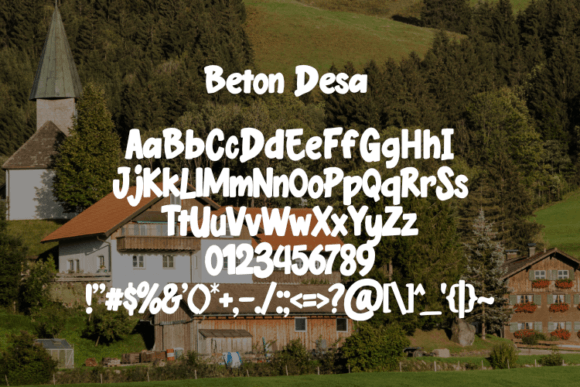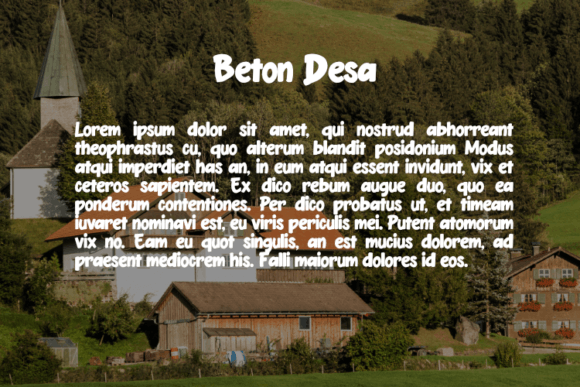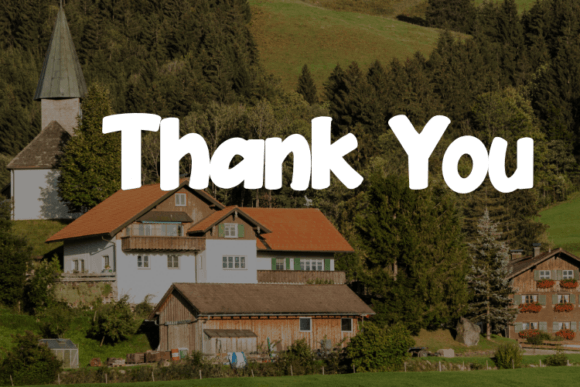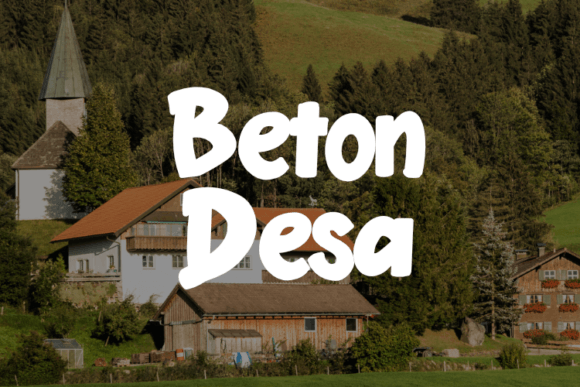
Introducing Beton Desa: The Ultimate Font for Fashion Design Ventures
Are you a fashion designer, craft enthusiast, or creative entrepreneur looking for a font that can elevate your design game? Look no further than Beton Desa, a stunning typeface that is perfect for all your fashion design ventures. From haute couture clothing to vibrant t-shirts, this versatile font seamlessly fits your creative desires, allowing you to bring your design ideas to life.
The Perfect Font for Fashion Design
Beton Desa is a beautifully crafted font that is specifically designed to meet the needs of fashion designers, crafters, and creatives. Its unique and elegant style makes it an ideal choice for a wide range of design projects, including fashion branding, clothing labels, t-shirt designs, and more. Whether you’re creating a luxury fashion brand or a casual streetwear label, Beton Desa is the perfect font to help you establish a strong visual identity.
One of the standout features of Beton Desa is its versatility. This font is designed to be adaptable and can be used in a variety of design contexts, from digital to print. Whether you’re creating a fashion brochure, a social media graphic, or a product label, Beton Desa looks amazing. Its clean lines, elegant curves, and sophisticated style make it a font that can be used in a wide range of design projects, ensuring that your brand looks professional and stylish.
Transform Your Design Ideas into Mesmerizing Realities
Beton Desa is more than just a font; it’s a design tool that can help you transform your ideas into mesmerizing realities. With its elegant style, versatility, and compatibility, Beton Desa gives you the creative freedom to experiment with different design concepts and bring your vision to life. Whether you’re a seasoned designer or a crafty entrepreneur, Beton Desa provides the perfect foundation for creating stunning designs that capture the essence of your brand.
Why Choose Beton Desa?
So, why choose Beton Desa over other fonts? Here are just a few reasons why Beton Desa stands out:
• Elegant Style: Beton Desa has a unique and elegant style that is perfect for fashion design ventures.
• Versatility: Beton Desa is adaptable and can be used in a wide range of design contexts, from digital to print.
In conclusion, Beton Desa is an illustrious font that is perfect for all your fashion design ventures. Its elegant style, versatility, compatibility, and flexibility make it a valuable addition to any designer’s toolkit. Whether you’re a fashion designer, craft enthusiast, or creative entrepreneur, Beton Desa provides the perfect foundation for creating stunning designs that capture the essence of your brand. So why wait? Embrace Beton Desa today and transform your design ideas into mesmerizing realities.